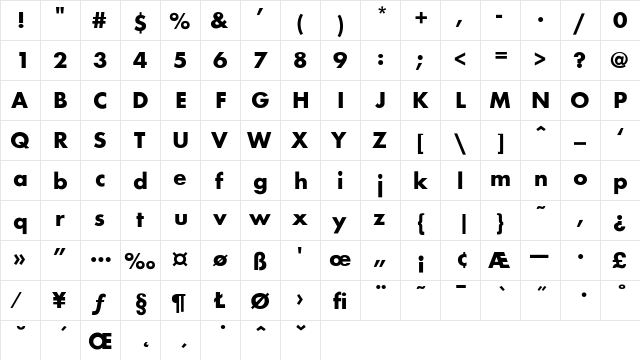
Noisee-bold Regular
Design Context for Noisee-bold Typeface
Noisee-bold offers clean, dependable letterforms without strong stylistic allegiance, making it a practical choice for designers who need flexibility. Its bold stroke weight gives it real presence on the page.